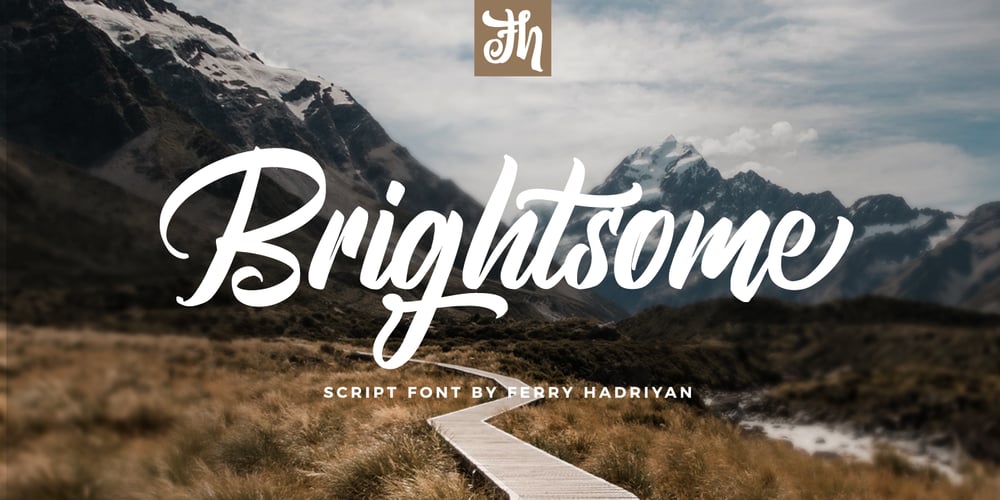
Brightsome Font Family was designed by Ferry Hadriyan and published by FHFont. Brightsome contains 1 styles and family package options. Brightsome is a hand-lettered brush script with OpenType features. It is suitable for design, weddings, events, t-shirts, logos, badges, stickers, and more to make your work awesome.Features:- OpenType Features- PUA Encoded- Multi-Language Support